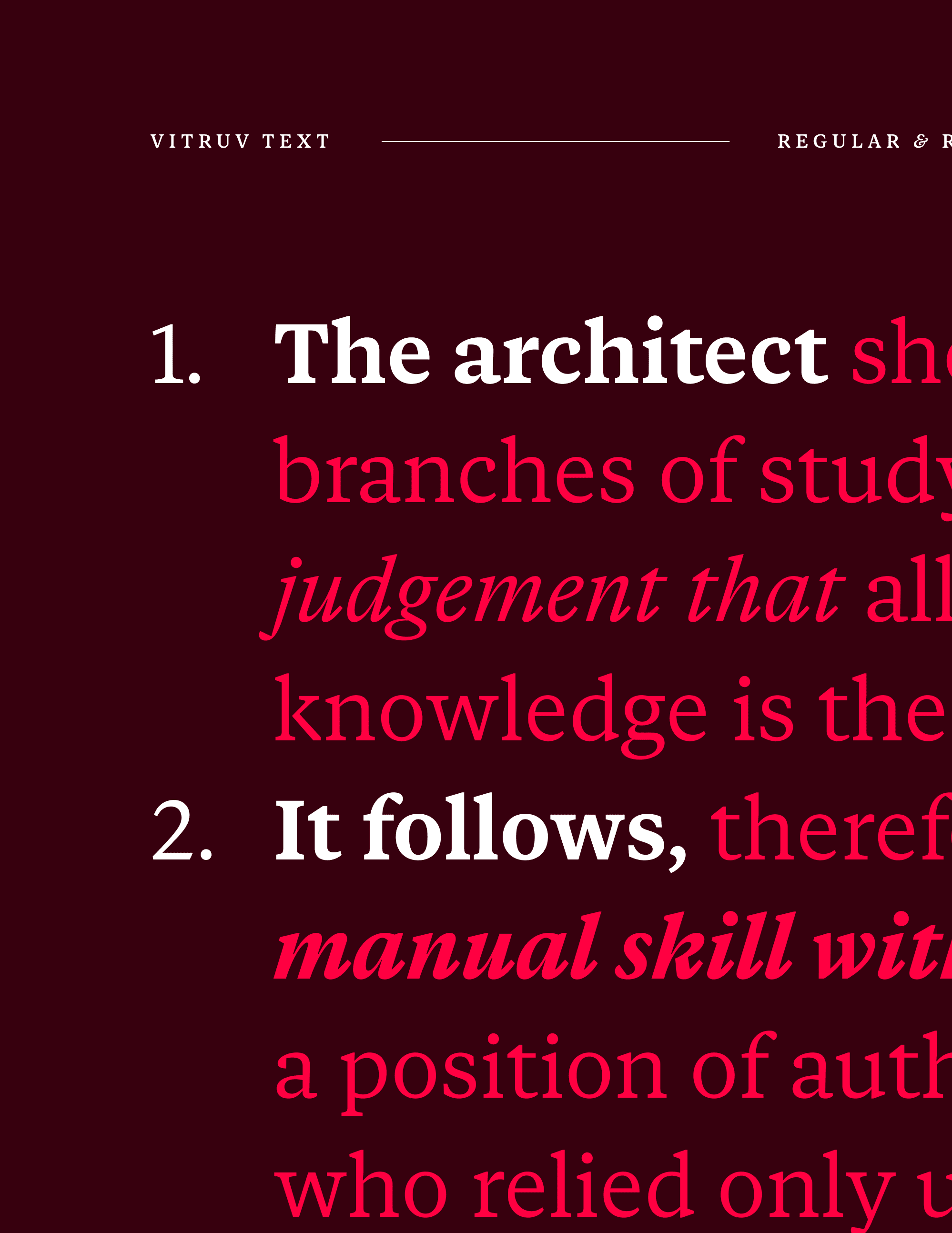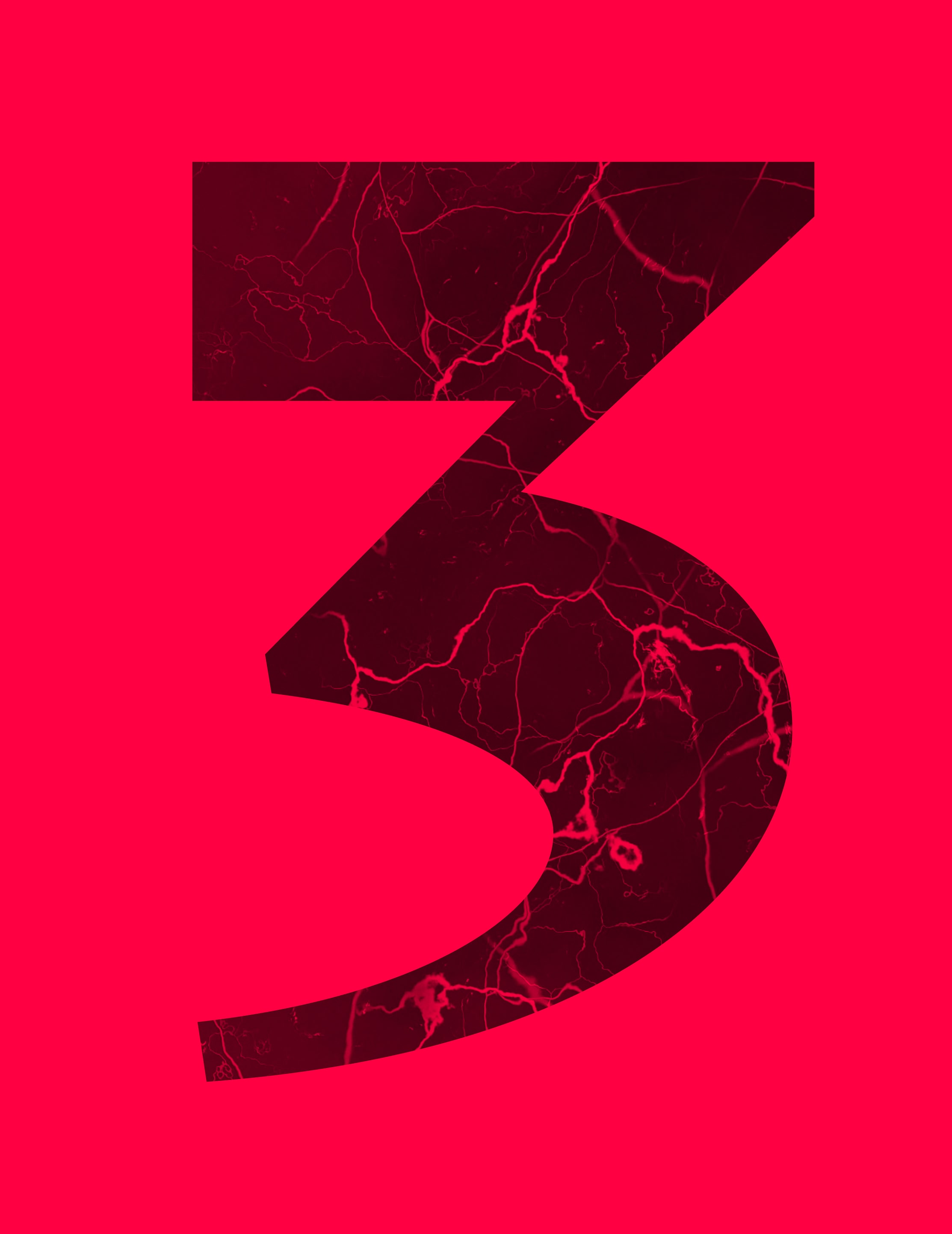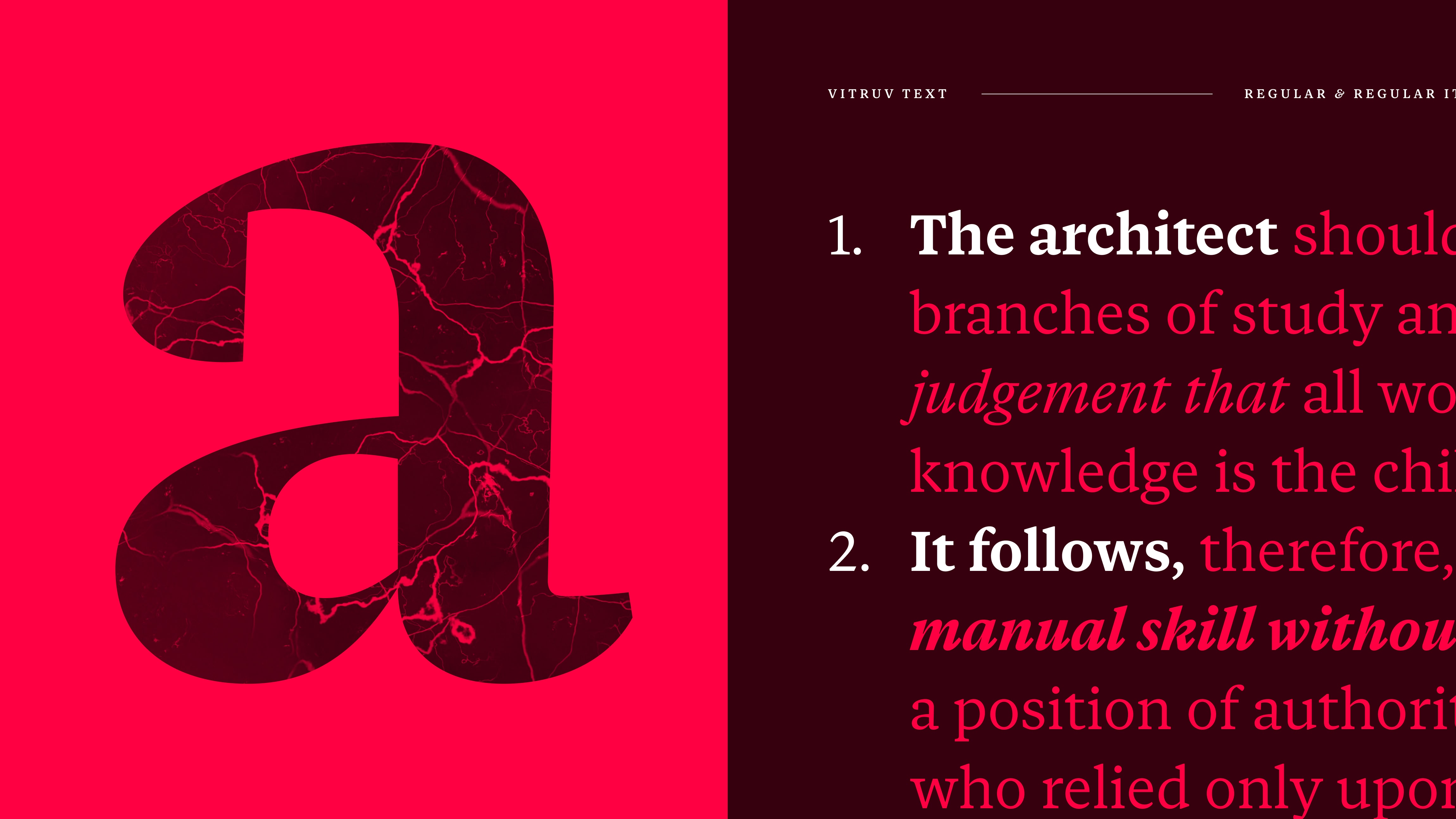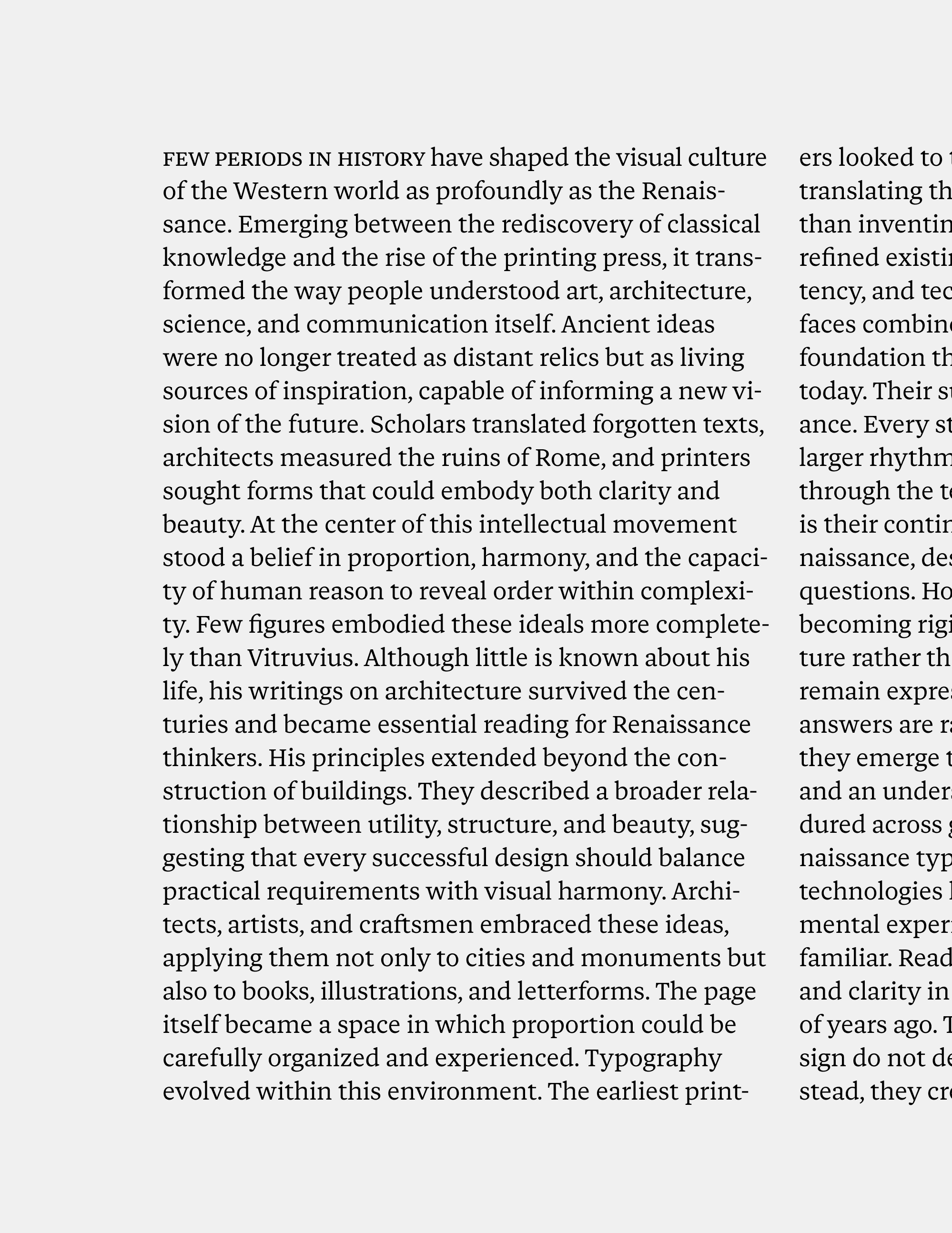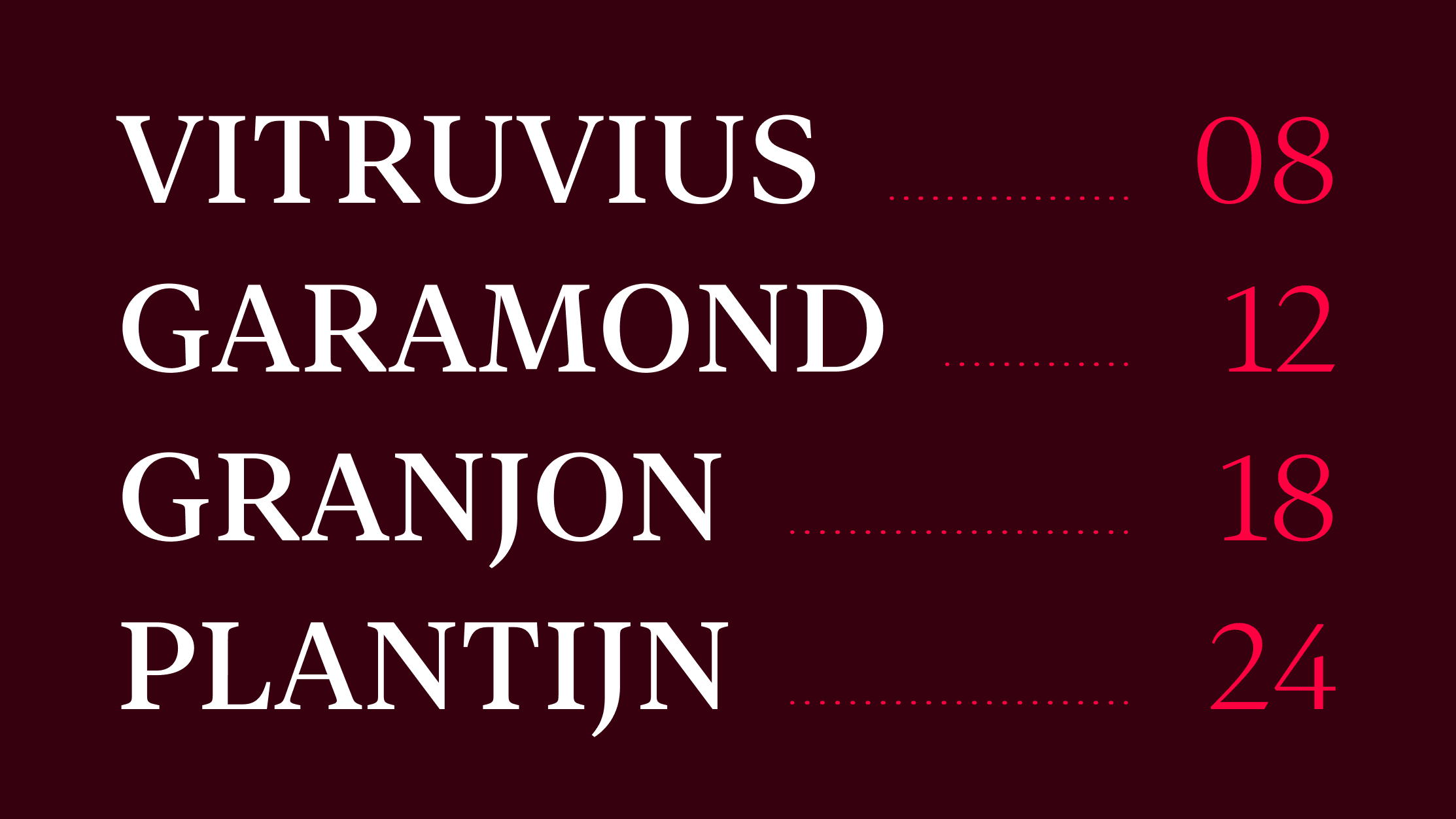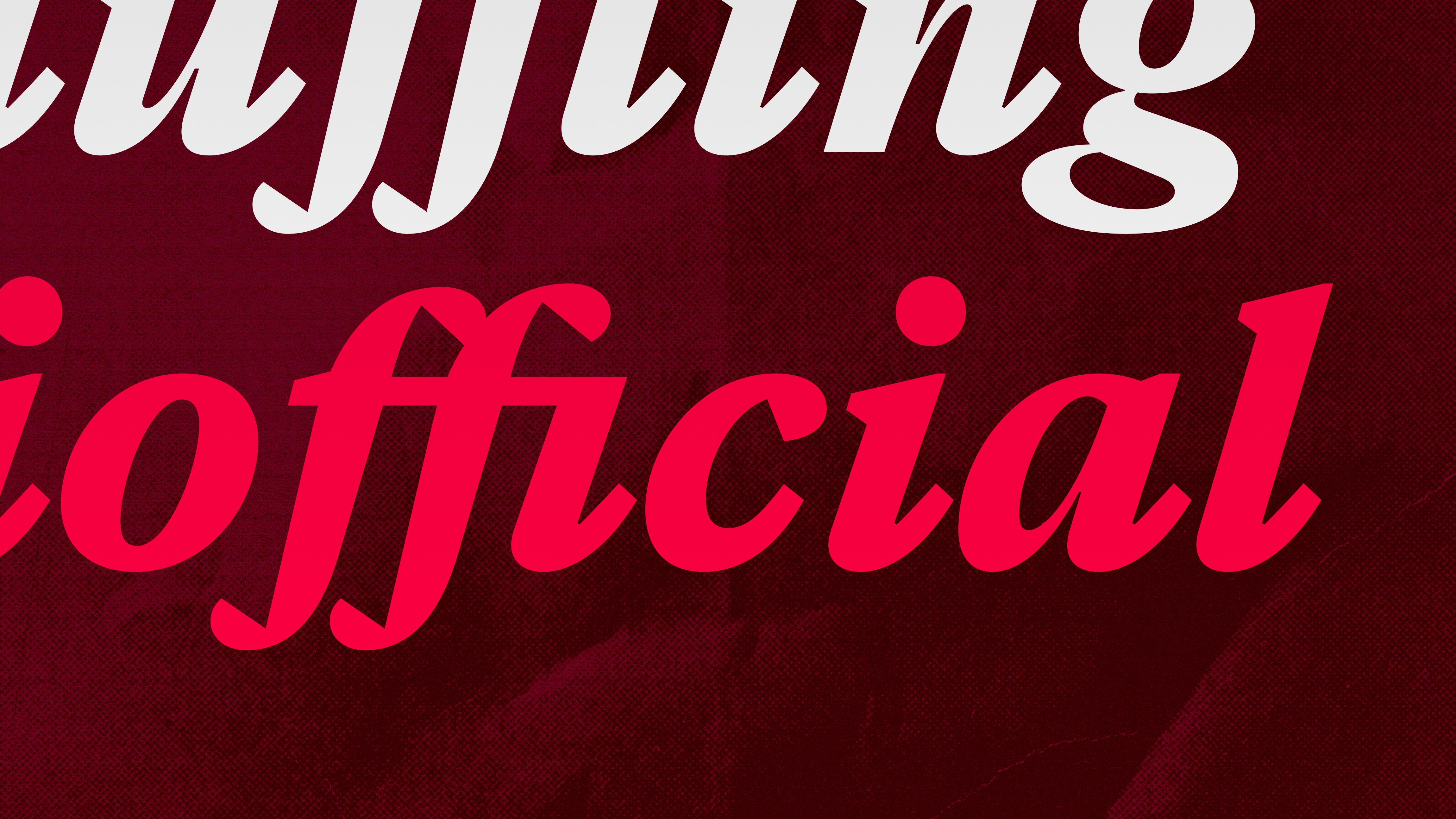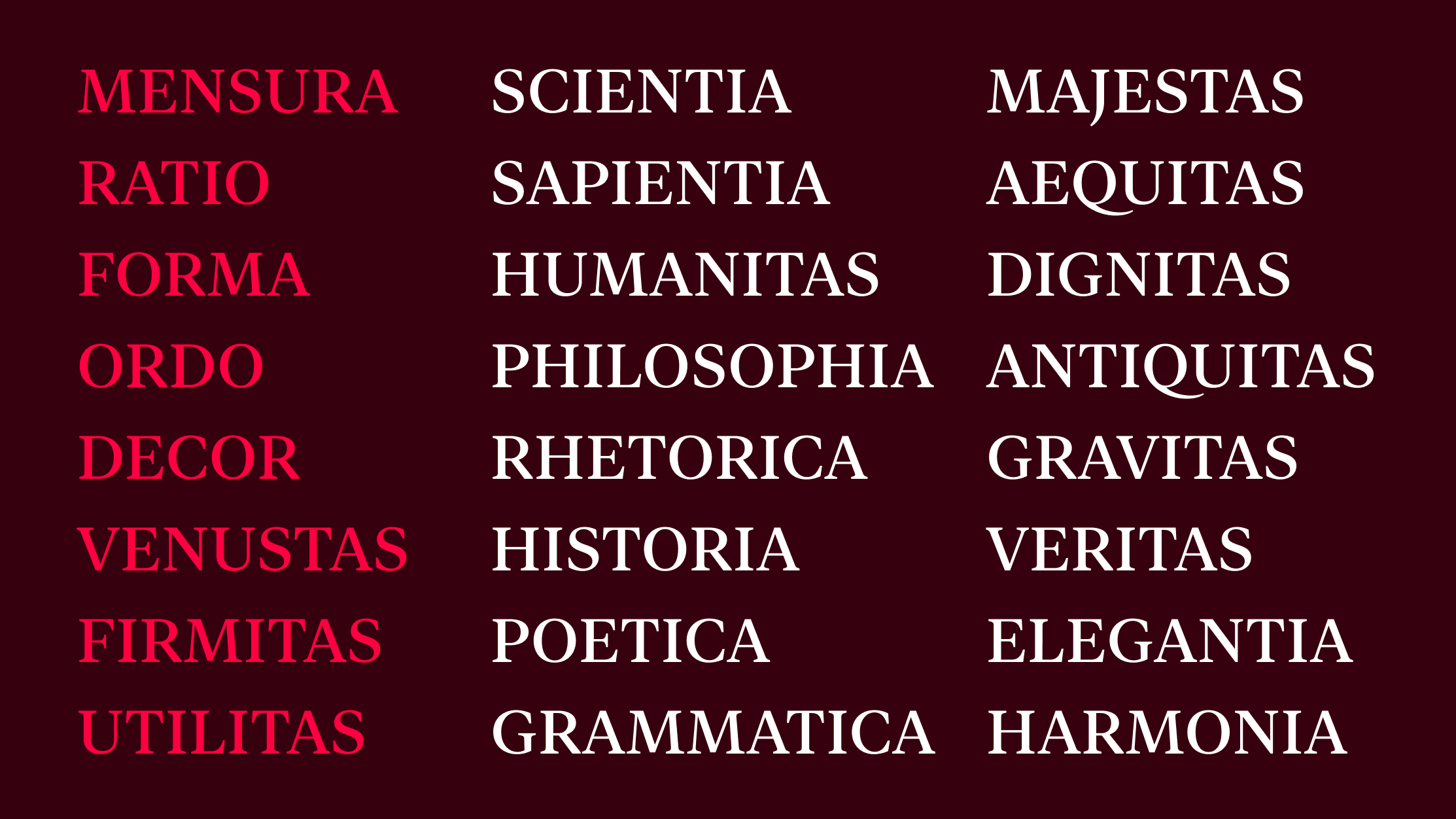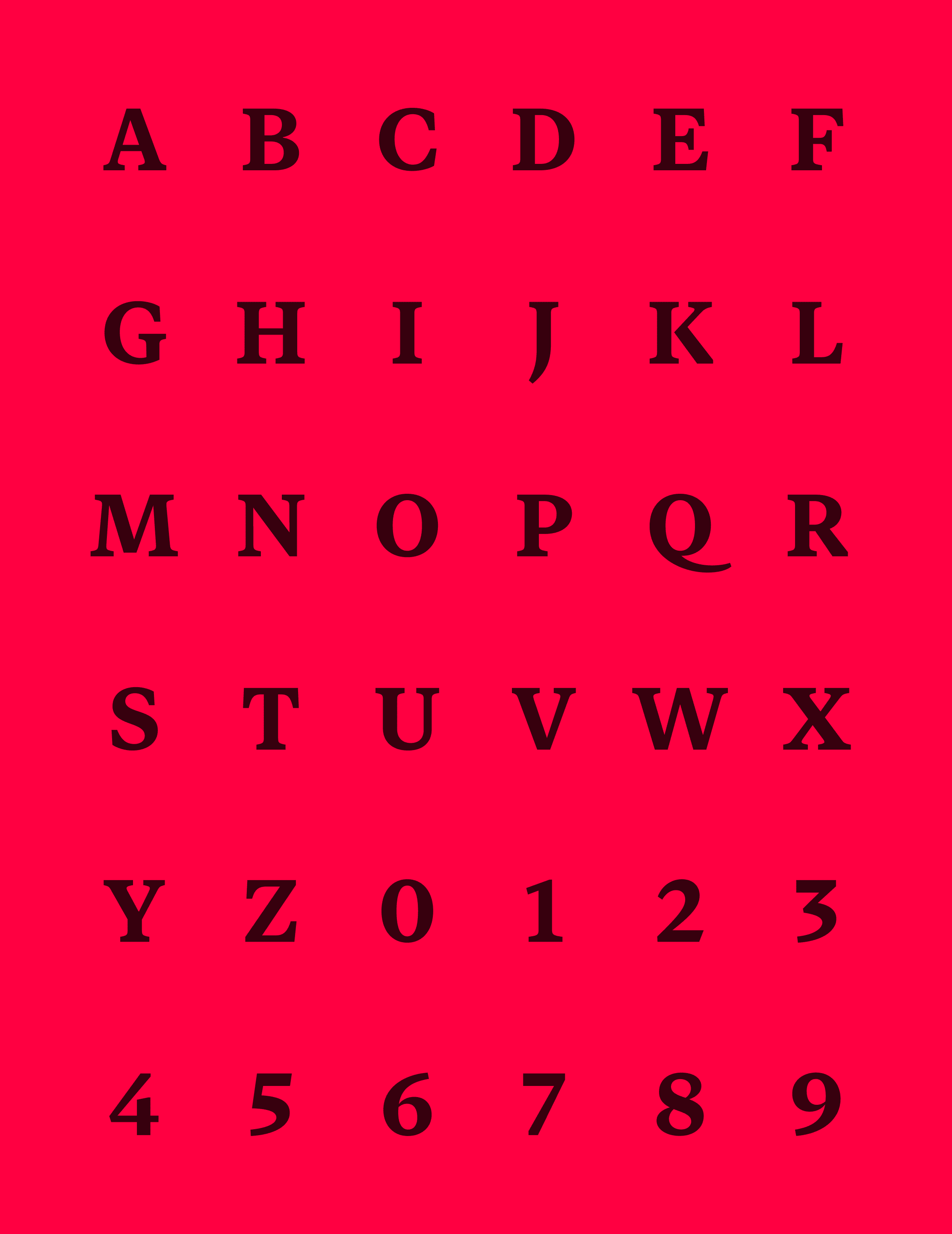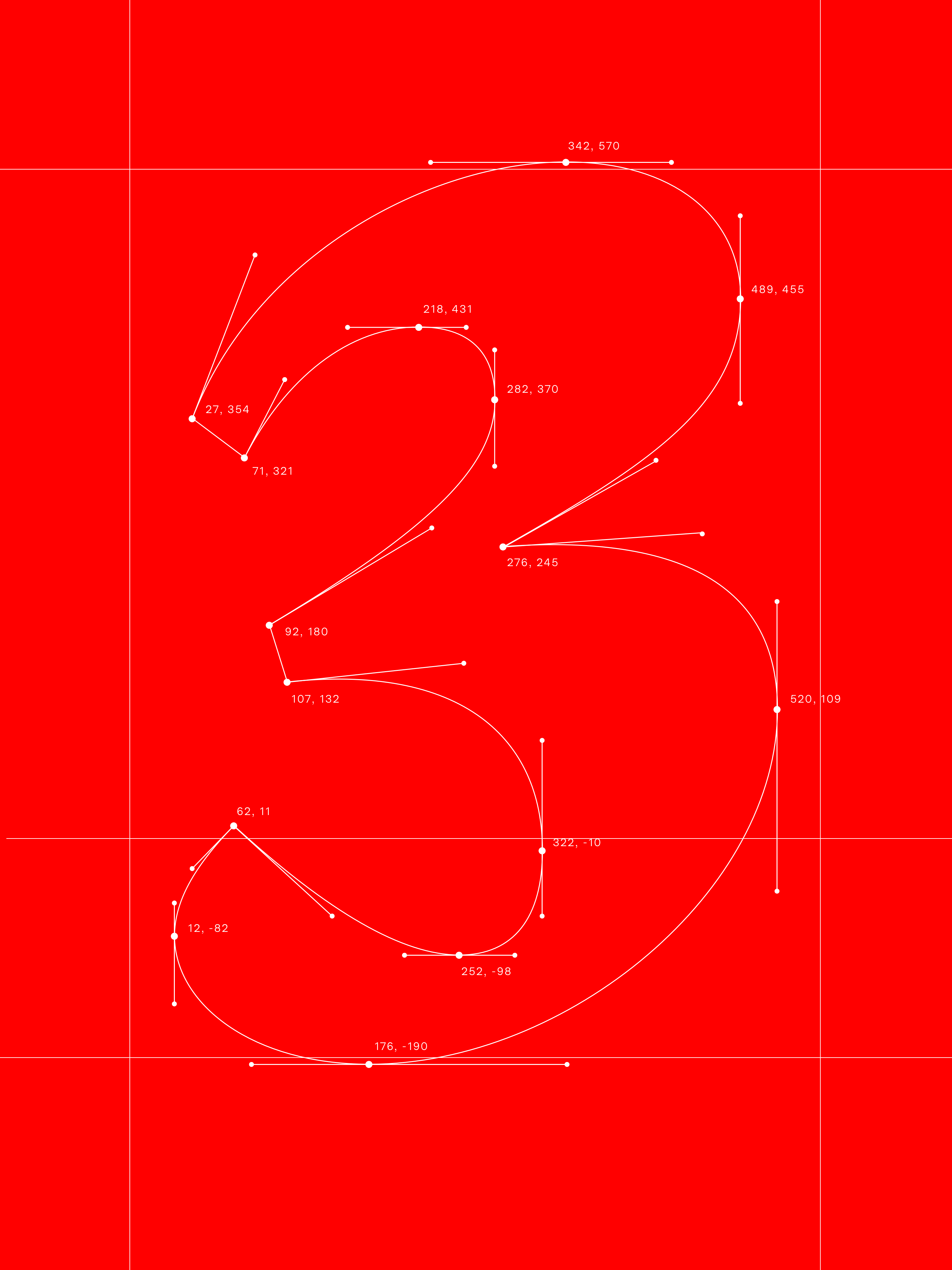
Vitruv Text is a Renaissance-inspired serif designed for continuous reading and smaller typographic sizes. Developed with sturdier details, wider spacing, and open forms, the family is complemented by Vitruv Headline and Vitruv Display for progressively larger optical sizes.